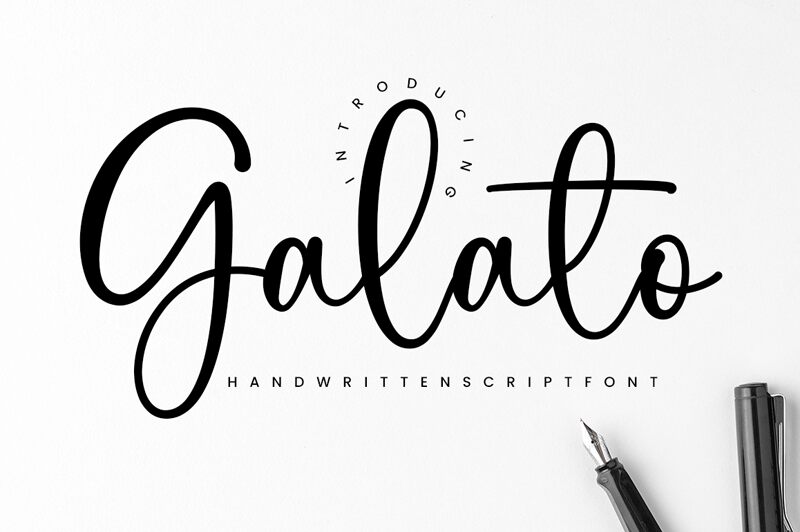
Galato
Galato, designed by the talented Ramli Setiadi, is a captivating handwritten font that adds a touch of elegance to any project. With its semi-light weight, it strikes the perfect balance between sophistication and playfulness. This versatile typeface is suitable for various projects, including wedding invitations that require a romantic and personal touch. Its graceful curves and fluid strokes also make it an ideal choice for branding materials such as logos or product packaging, adding a unique and artistic flair. Let Galato bring your designs to life with its charming and distinctive handwritten style.